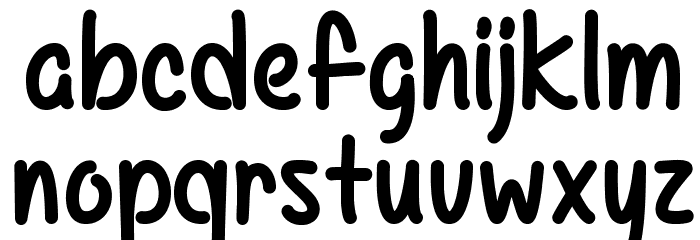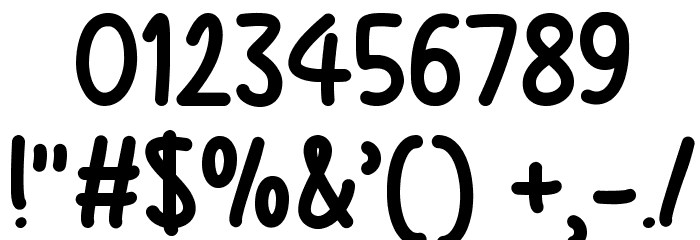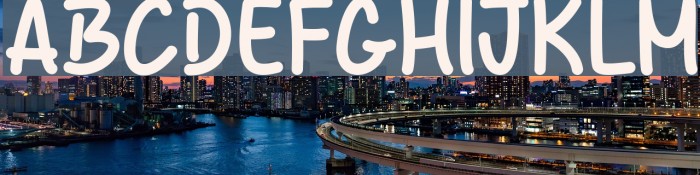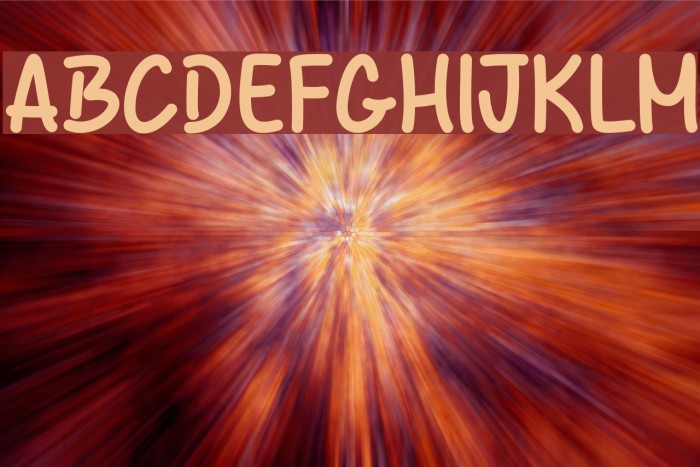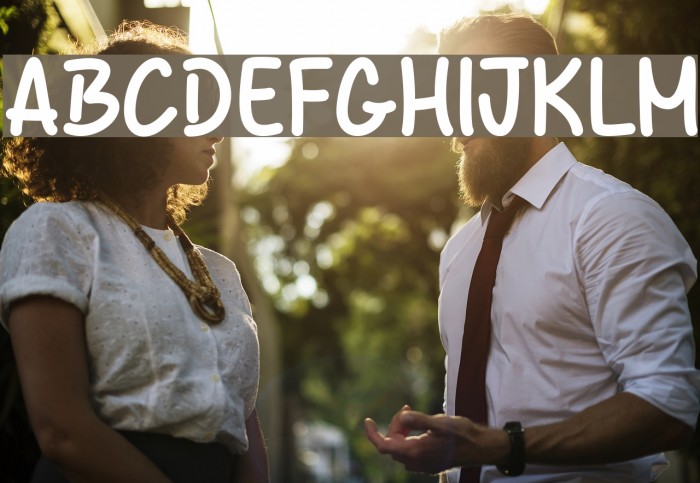
Kazincbarcika Font
This playful and rounded font features a handwritten style with a casual and friendly appearance. The letters are bold and slightly irregular, giving it a unique and approachable character. The uppercase and lowercase letters maintain a consistent style, with smooth curves and a uniform thickness that adds to its legibility. Numbers and special characters follow the same design principles, ensuring a cohesive look across all text elements. This font is ideal for projects that require a personal touch, such as invitations, greeting cards, or children's book covers.
A playful, rounded handwritten font with a casual and friendly style.
- Proposed Projects: Ideal for invitations, greeting cards, children's book covers, and playful branding.
- Overall Style: Playful
- Use Case: Headlines, Logos, Invitations